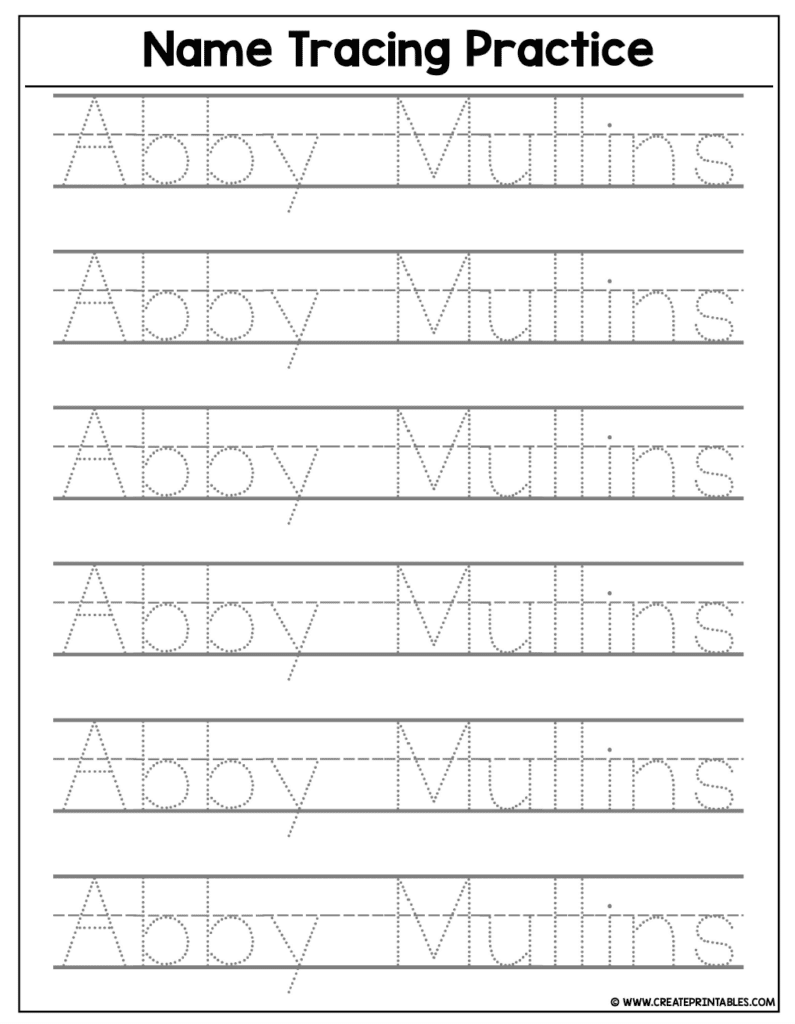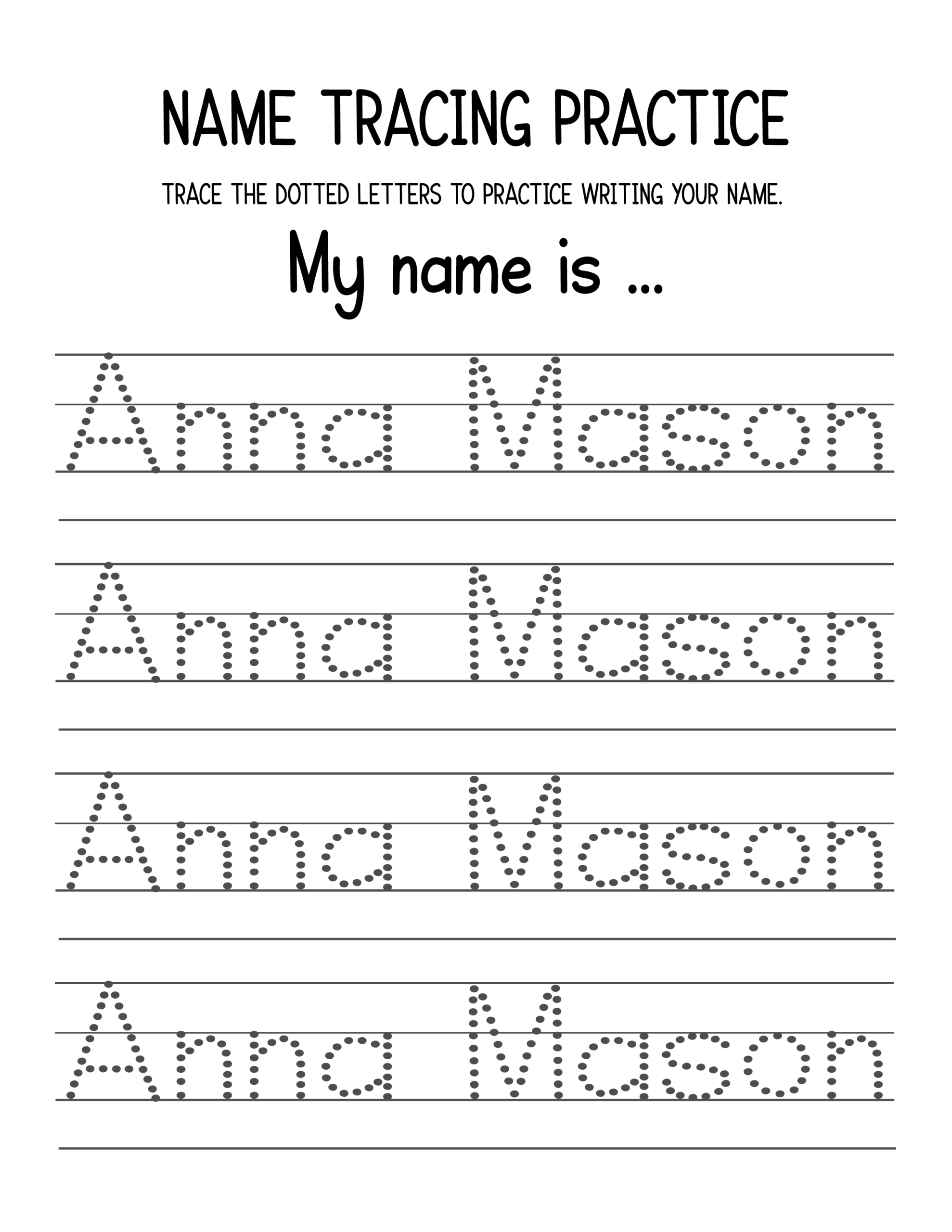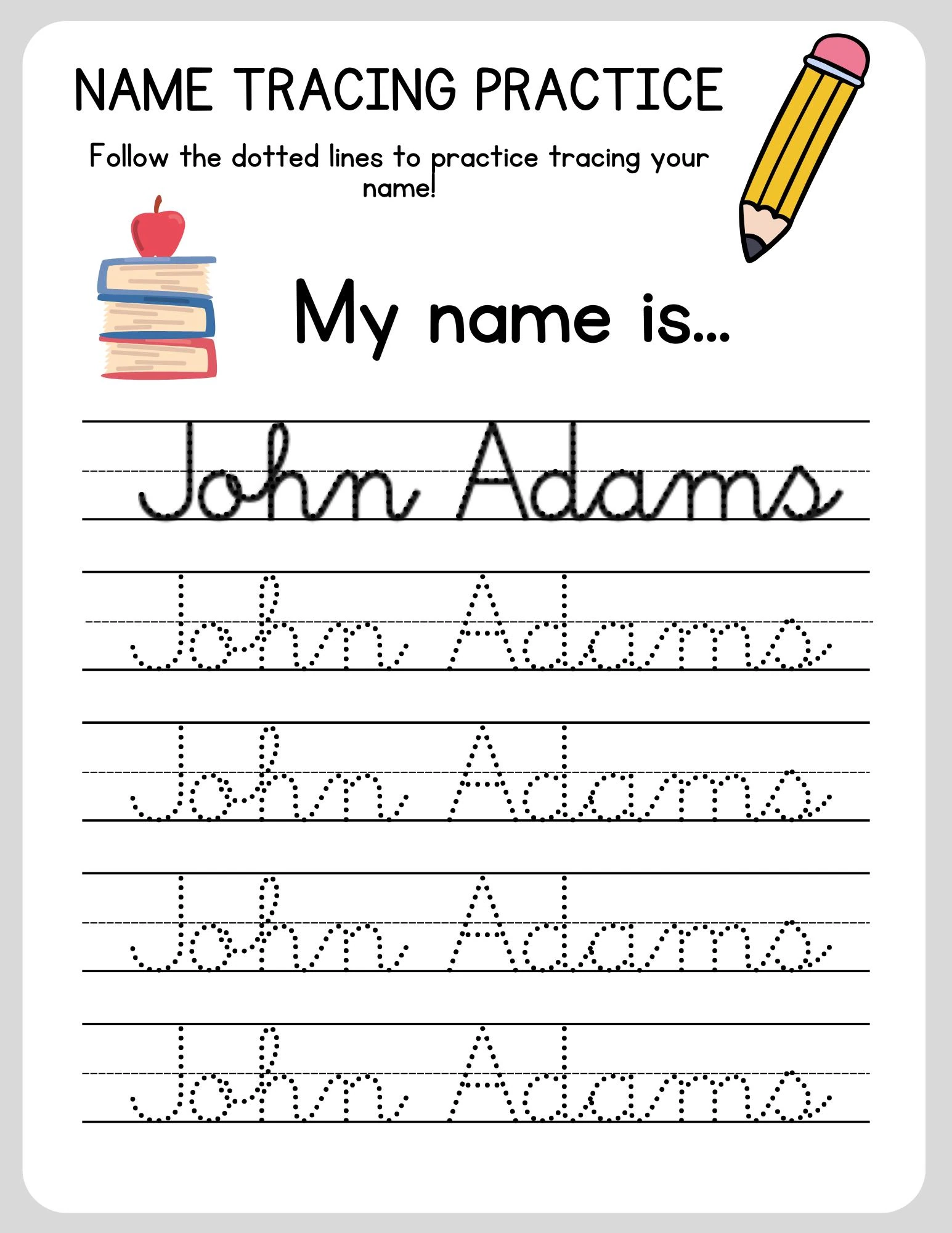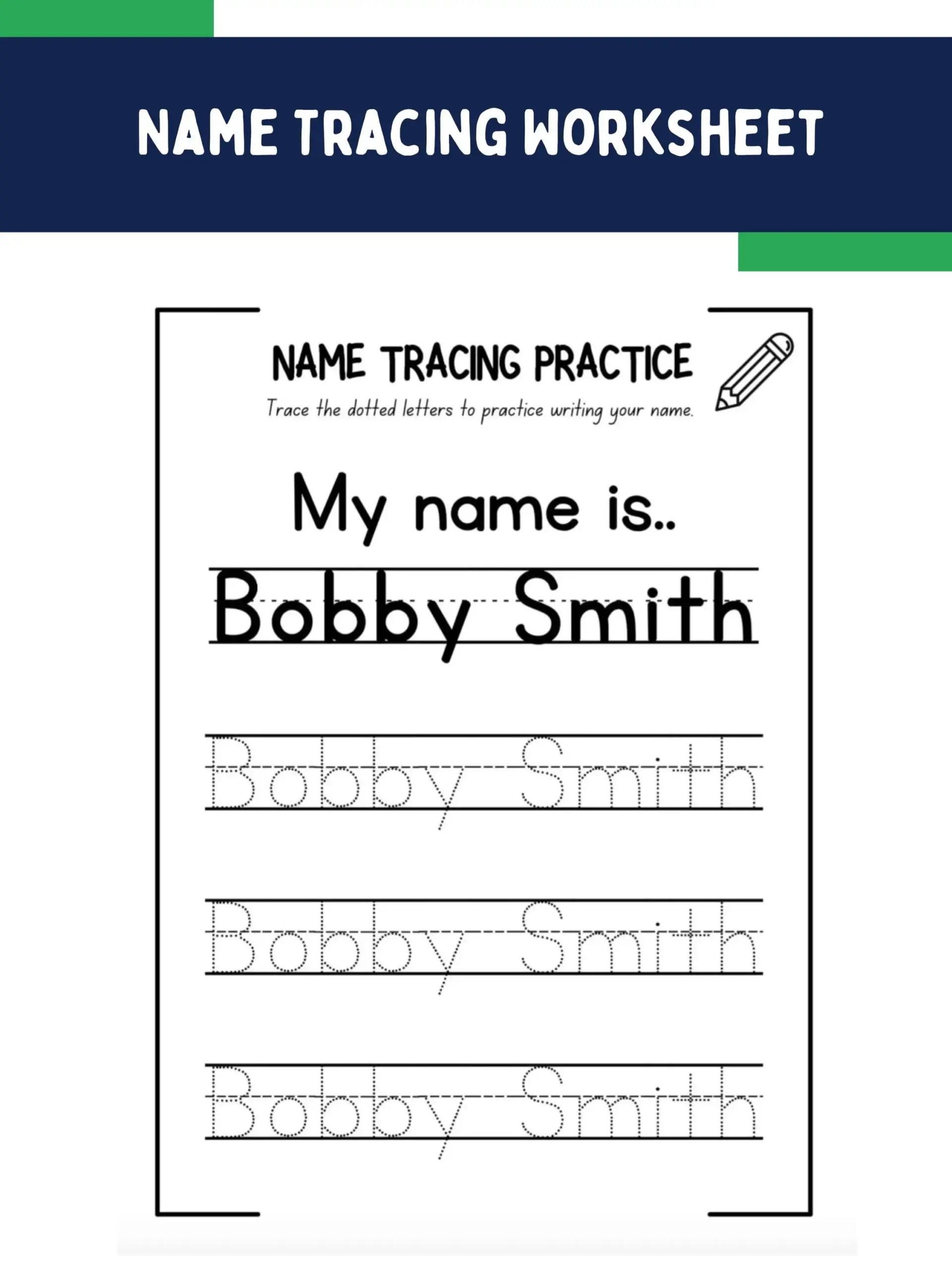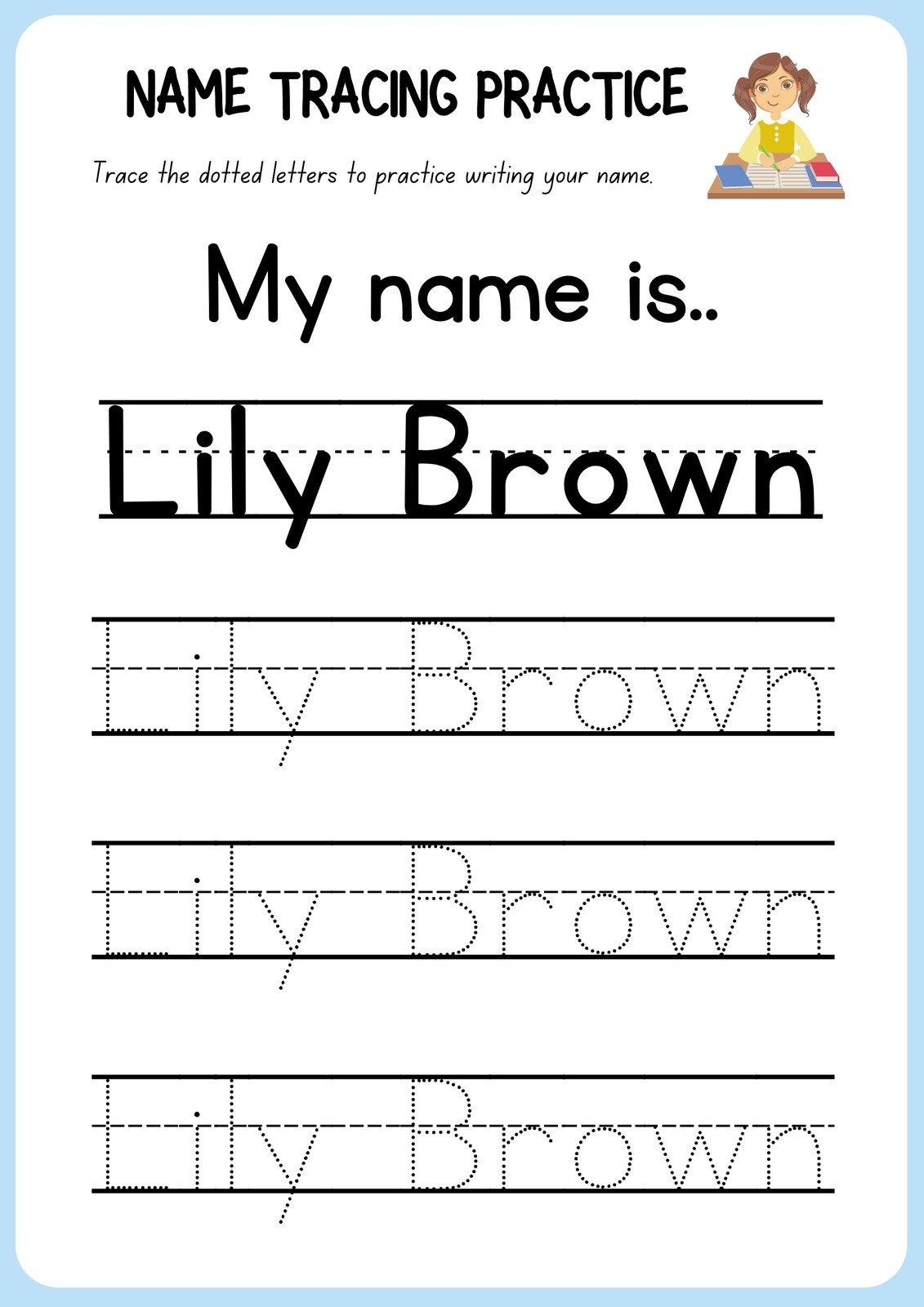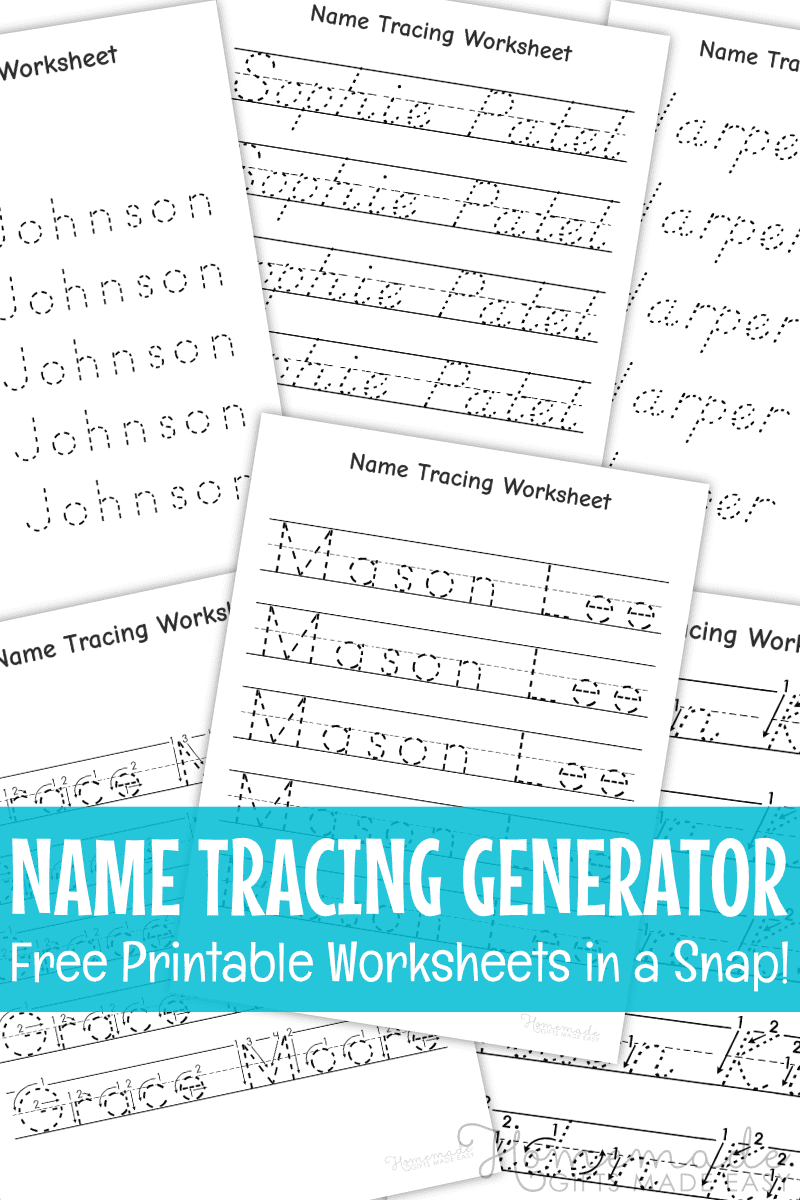
Learning to write can be a fun adventure for kids. One effective way to help them is through the use of tracing fonts. These fonts provide a clear guide, making it easier for young learners to practice their handwriting skills.
Dotted Line Name Tracing Font
The Dotted Line Name Tracing Font is designed specifically for early learners. Its dotted format helps children understand letter formation while encouraging them to develop their unique writing style. This font is perfect for personalized practice.
Using this font in worksheets can make learning more engaging. Kids love seeing their names in print, and tracing them reinforces letter recognition and spelling. It’s a simple yet effective tool for parents and teachers alike.
Additionally, the Dotted Line Name Tracing Font can be used in various activities. From creating custom name tags to fun art projects, this font adds a personal touch that keeps children motivated and excited about writing.
Incorporating the Dotted Line Name Tracing Font into your child’s learning routine can make a significant difference. It not only enhances their writing skills but also fosters a love for learning that lasts a lifetime.